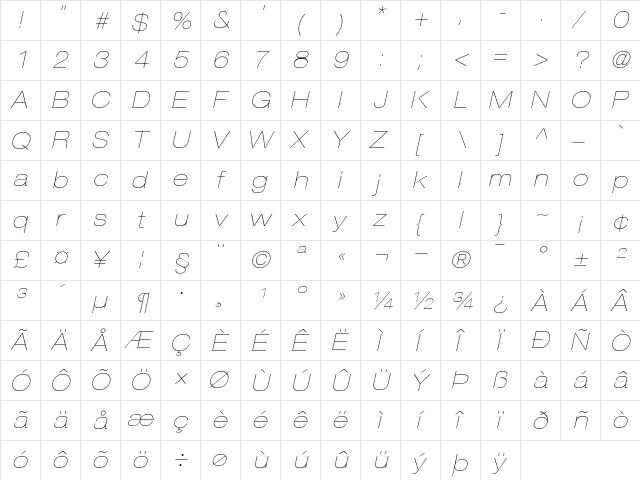
Helvetica23-ExtendedUltraLight Ultra LightItalic
Design Context for Helvetica23-ExtendedUltraLight Typeface
Helvetica23-ExtendedUltraLight offers clean, dependable letterforms without strong stylistic allegiance, making it a practical choice for designers who need flexibility. The slanted form adds forward momentum and visual energy. Its slender proportions lend an understated elegance to any composition.